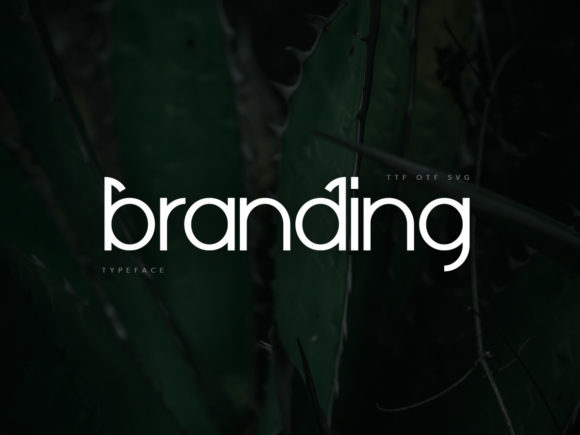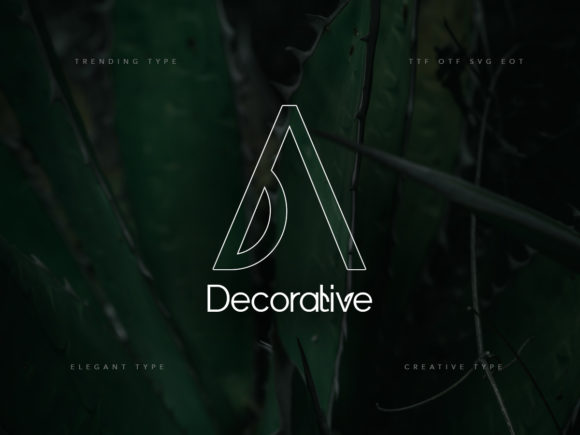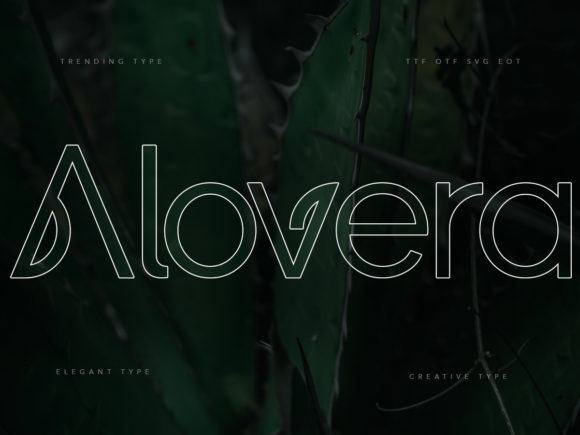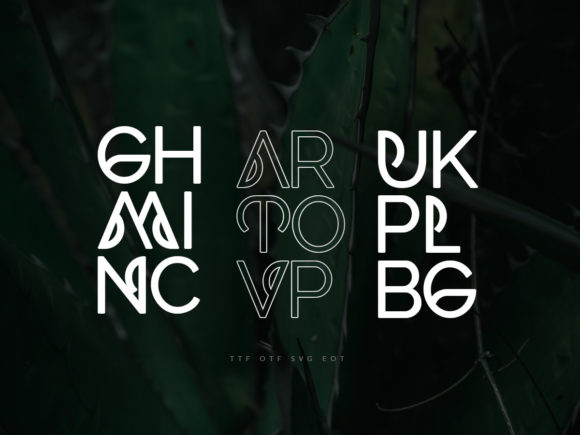
Have you ever stared at a blank canvas, feeling the weight of a creative deadline looming over you? The cursor blinks, and your mind goes blank, searching for that perfect spark to set your project ablaze. It’s moments like these that make a well-chosen font a lifesaver.
Enter the Alovera Font, a sleek and modern display font designed to elevate any creation. Whether you’re crafting a futuristic sci-fi poster or a minimalist logo, this font is the perfect companion to bring your vision to life. Its cool, techno vibe is sure to captivate audiences and leave a lasting impression.
As a designer, you know how valuable a versatile font can be. Alovera Font is no exception, offering endless possibilities to take your projects to the next level. Its unique style and modern feel make it a must-have addition to any font library, ensuring that your creations stand out in a crowded digital landscape.
- Font Family: Alovera is a sans-serif font family designed for digital use.
- Character Set: Supports a wide range of languages, including Latin, Cyrillic, and Greek.
- Unique Characteristics: Alovera features a clean and modern design, with a focus on legibility and readability in digital environments.
I recently had the chance to work with the Alovera font, and I must say it’s been an interesting experience. ✨ The first thing I noticed was the unique aesthetic it brings to any design project. The font’s soft, rounded edges and smooth lines make it perfect for creating a calming and friendly atmosphere.
One of the things I appreciate about Alovera is its versatility. ✨ It can be used for both body text and headings, and it works well in a variety of contexts, from digital products to print materials. The font also has a range of weights, from light to bold, which makes it easy to adjust the level of emphasis in your design.
While Alovera is a great font, there are a few limitations to be aware of. ⚠️ One of the main issues is its lack of distinction between different weights. While the font has a range of weights, they can sometimes feel quite similar, which can make it difficult to create clear visual hierarchy in your design.
Overall, I think Alovera is a solid choice for designers who want a clean and friendly font. While it may not be the most distinctive or attention-grabbing font out there, it’s a reliable choice that can help create a cohesive and professional-looking design.
- Unique aesthetic with soft, rounded edges and smooth lines
- Versatile and works well in a variety of contexts
- Range of weights (light to bold)
- Lack of distinction between different weights
For best results, use Aloe Vera font in titles, headings, or short paragraphs where its unique style can be effectively showcased.
For best results, use Aloe Vera font in creative projects, such as graphic design, logo creation, or typography-based art.
For best results, use Aloe Vera font in presentations, reports, or documents where a unique and creative touch is desired.
Aloe Vera font is ideal for use in creative projects, such as:
- Graphic design and logo creation
- Document design and layout
Remember to use Aloe Vera font sparingly and effectively to avoid overwhelming your audience.
Yes, Alovera is available in multiple font variants, including regular, italic, bold, and bold italic. These variants can be used to add emphasis and visual interest to your designs. You can also use the font’s contextual alternates and ligatures to enhance the font’s readability and aesthetics.